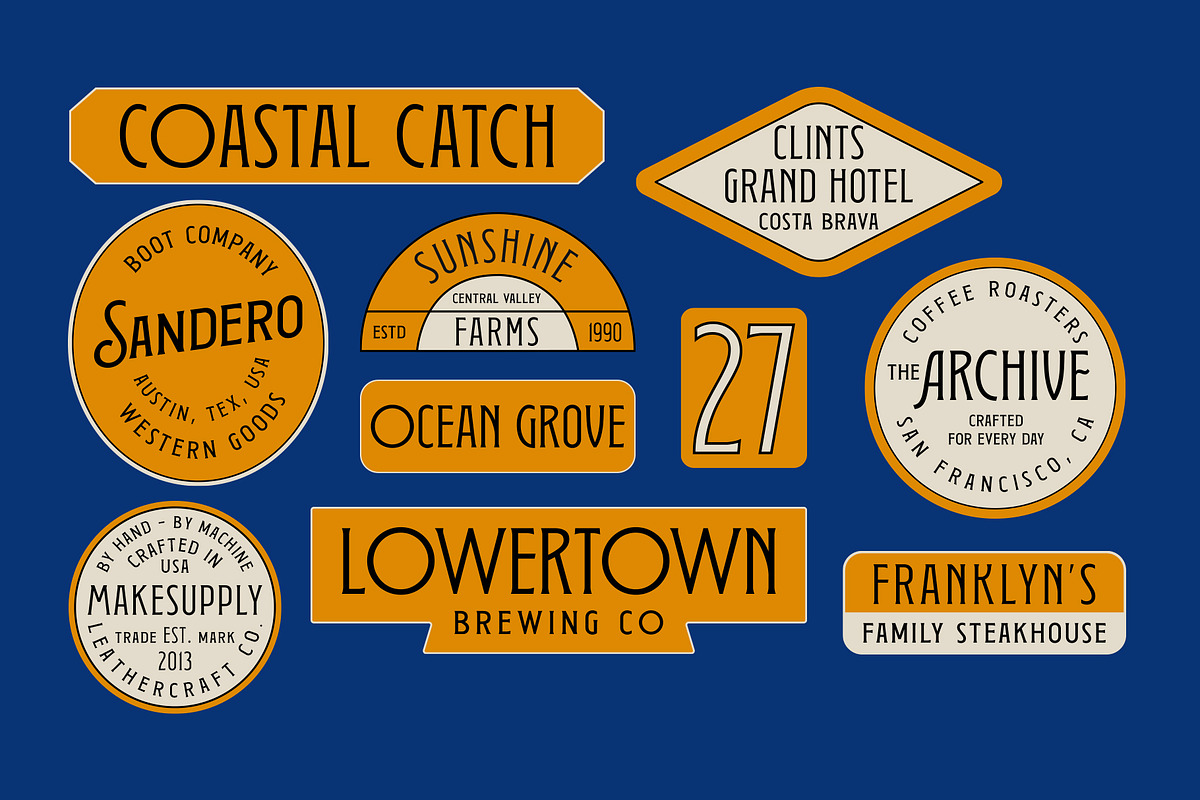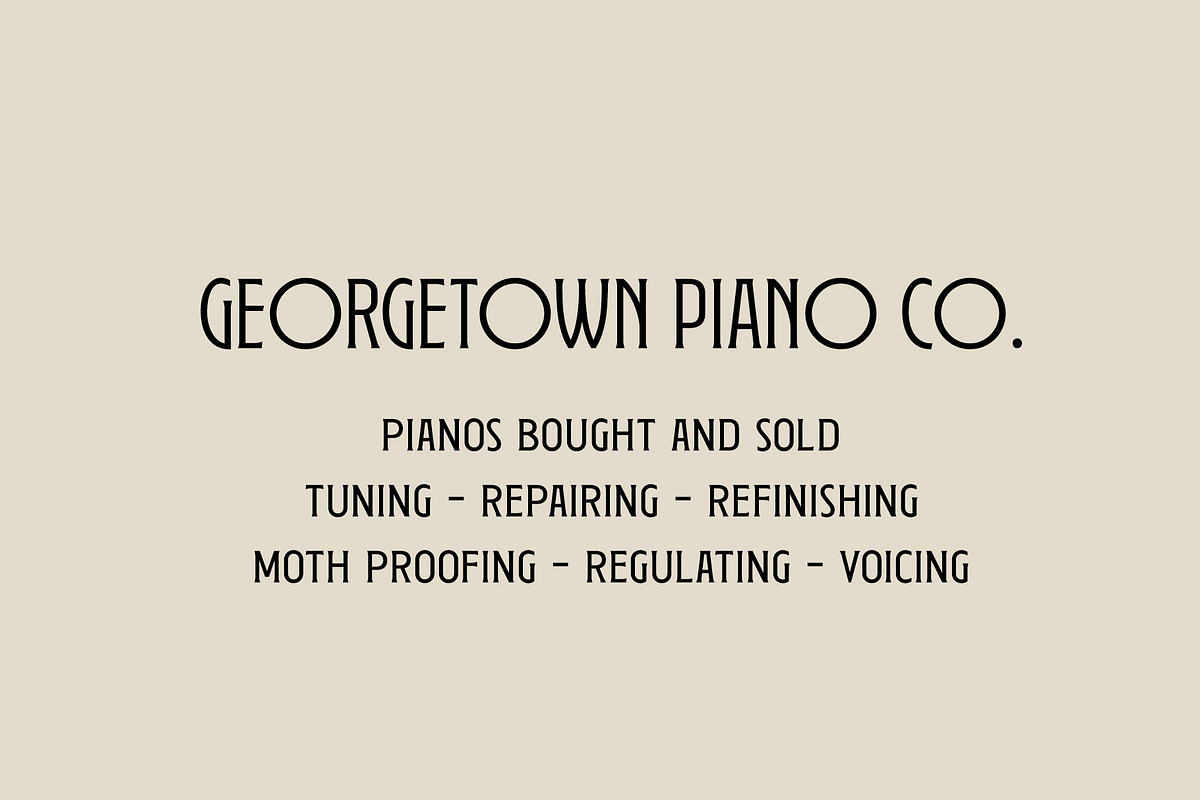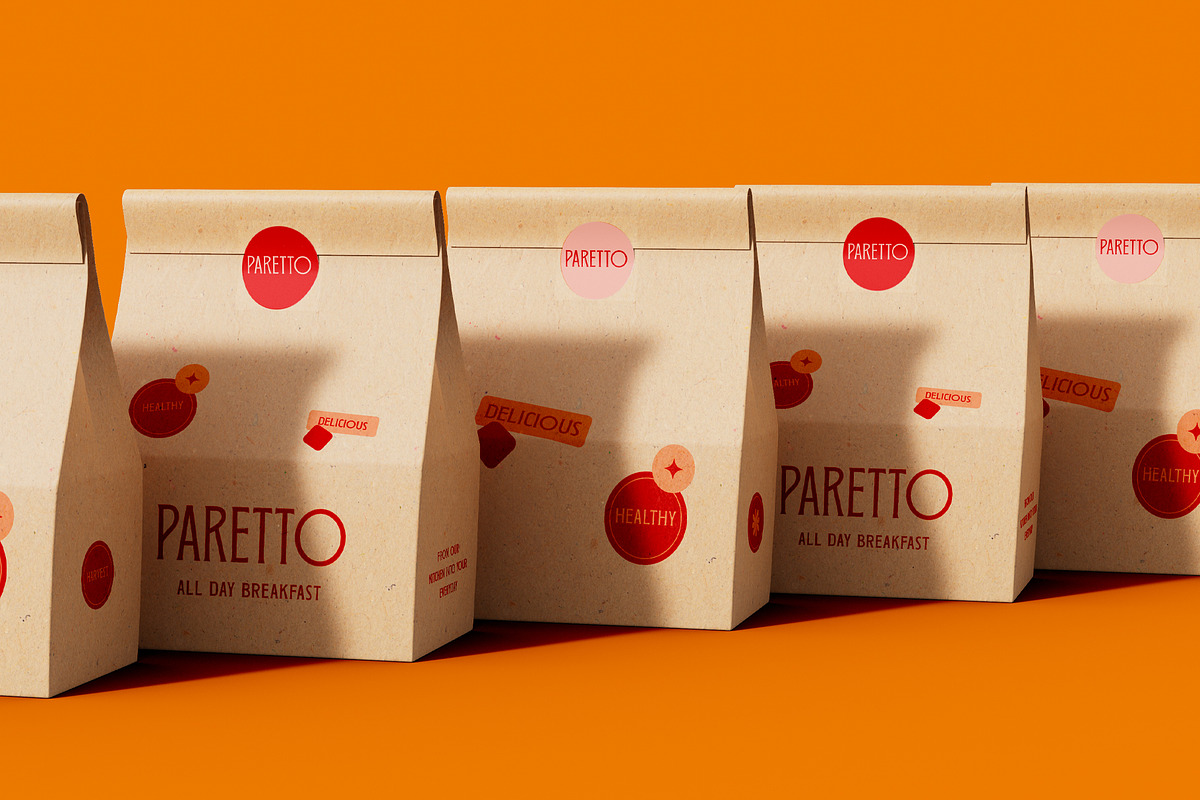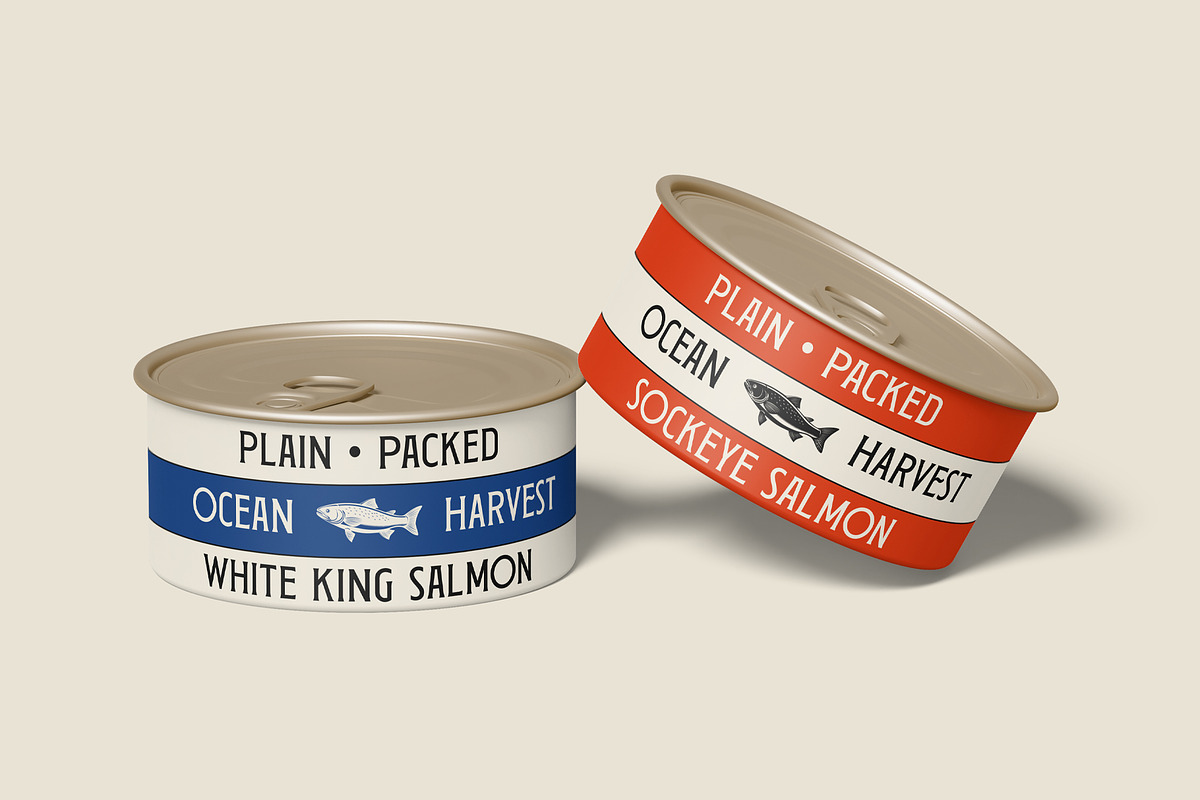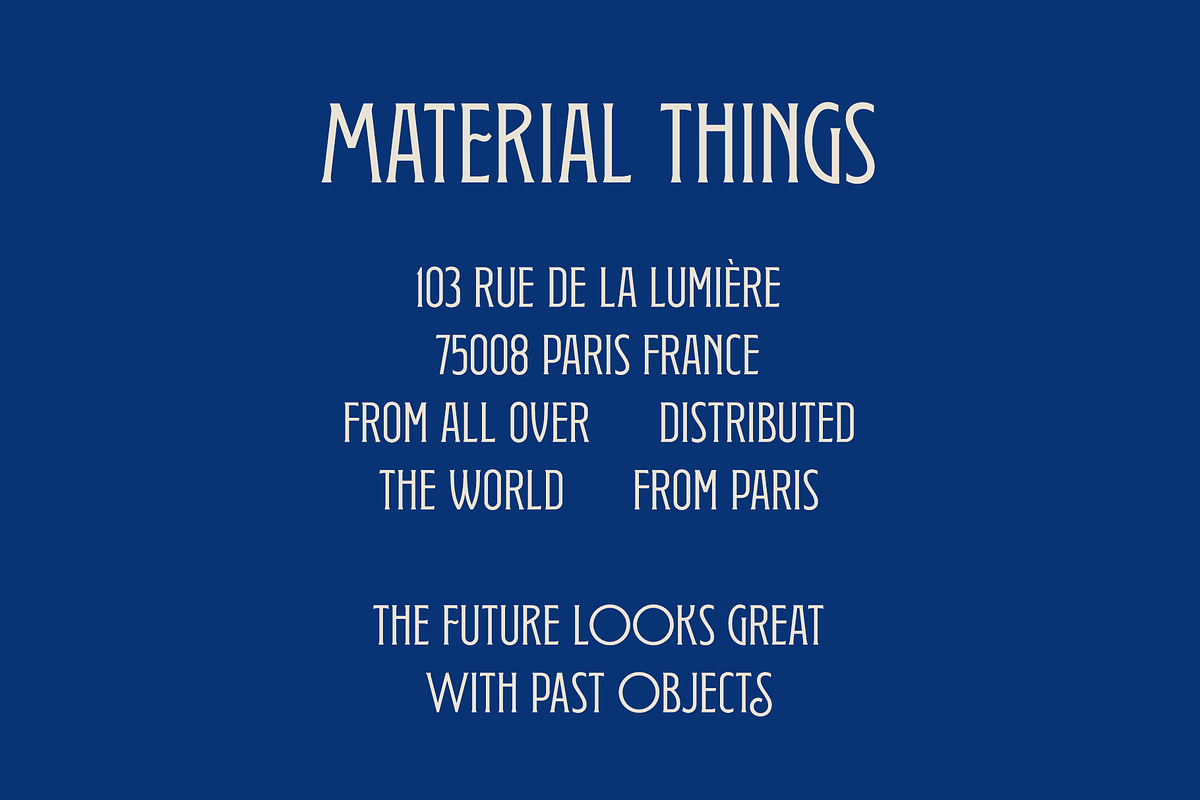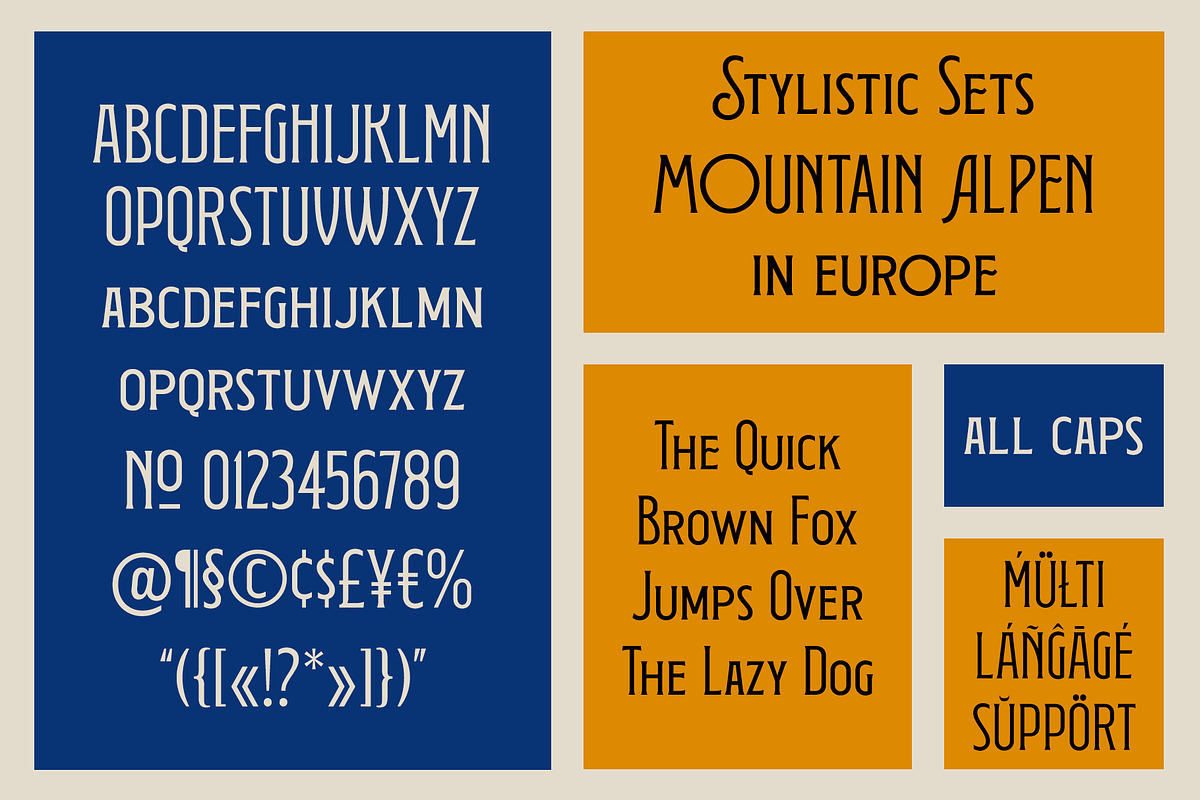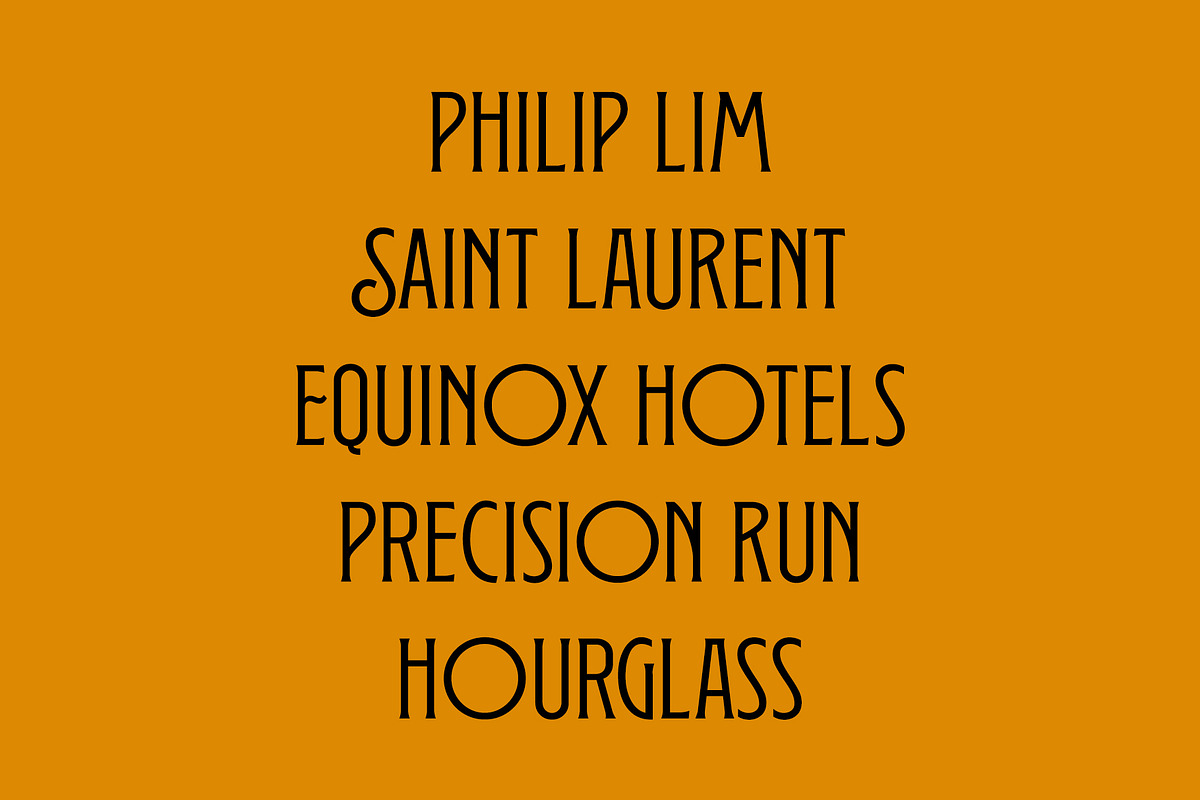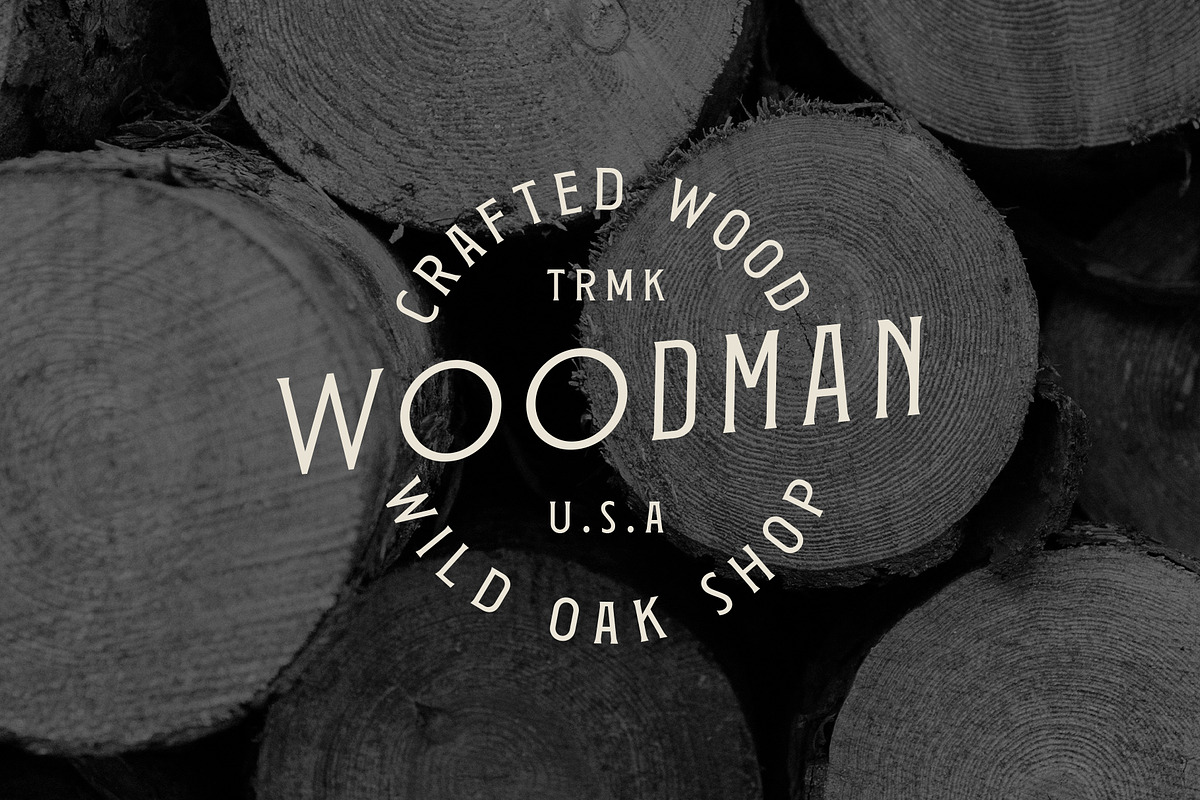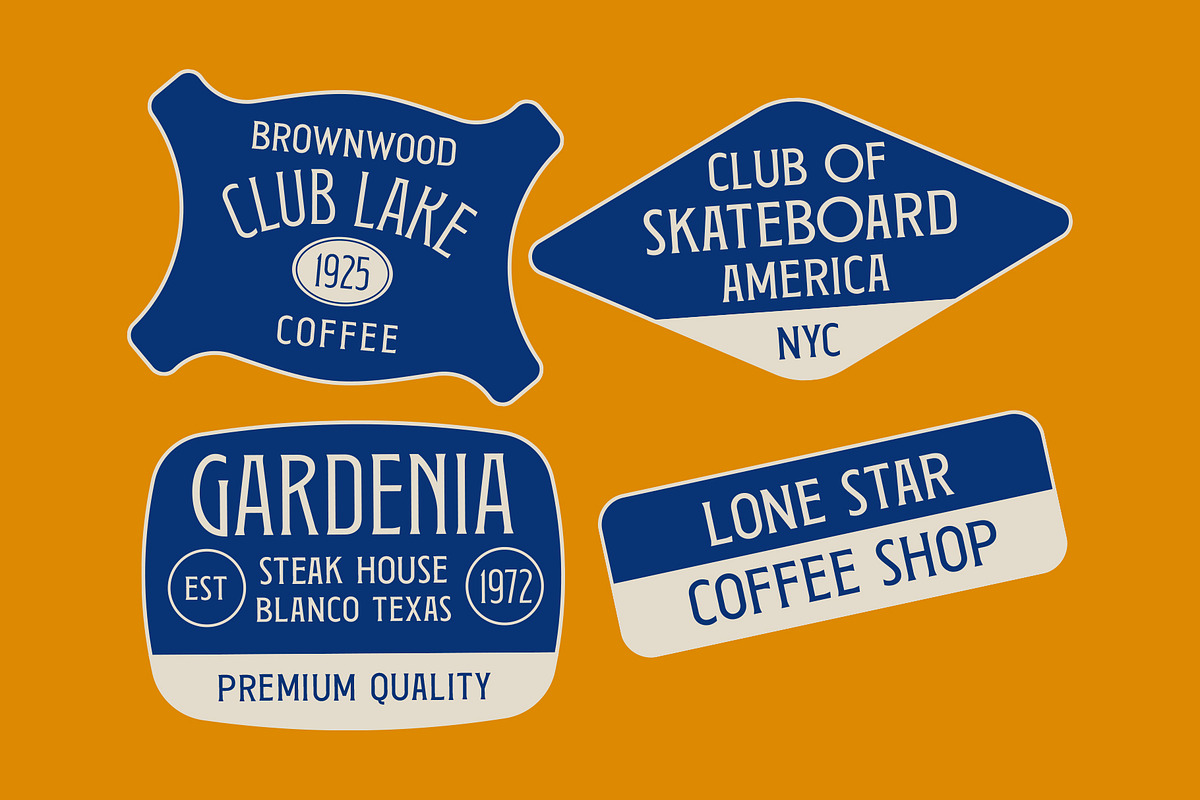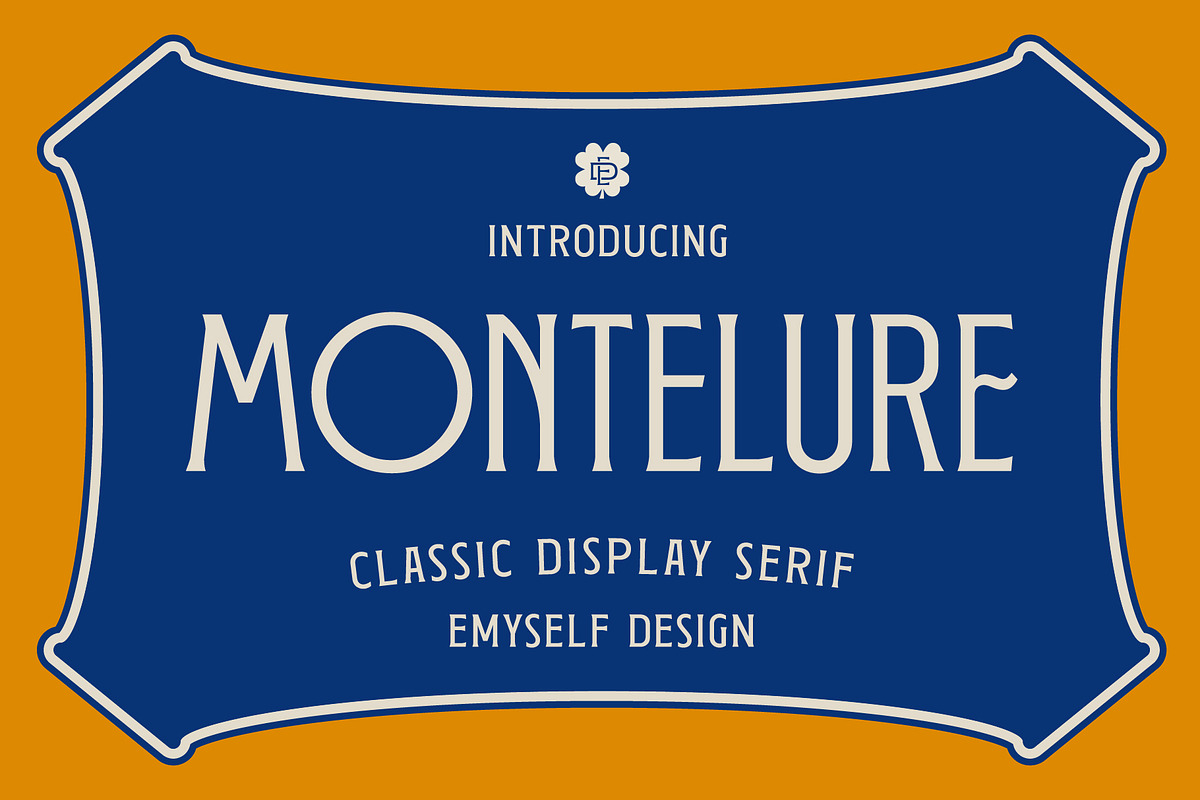
ED Montelure - Display serif
Introducing ED Montelure, a classic display serif font with an elegant, timeless character inspired by vintage typography and old-world craftsmanship.
Montelure stands out with its distinctive tall, condensed uppercase letters paired with a striking height contrast against its lowercase — creating a refined, editorial look that feels both structured and sophisticated. Every letterform is carefully crafted to bring balance between boldness and elegance, making it perfect for designs that call for a strong yet classic statement.
With its retro-inspired serifs and confident proportions, ED Montelure works beautifully for logos, branding, editorial headlines, signage, packaging, and any project that needs a touch of vintage charm with a modern, polished finish.